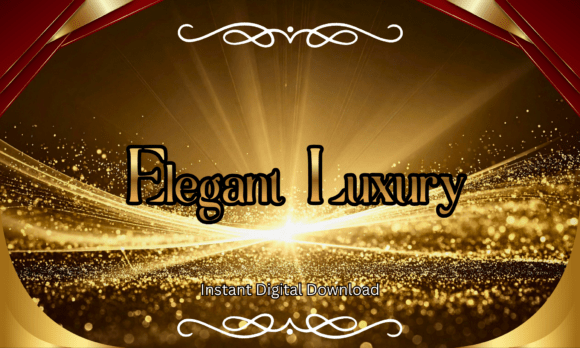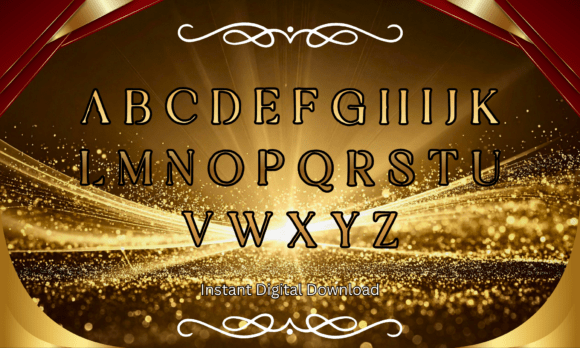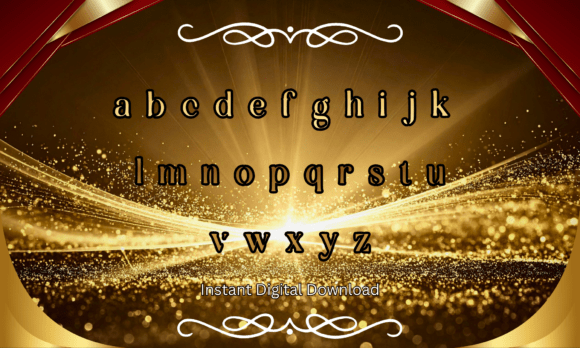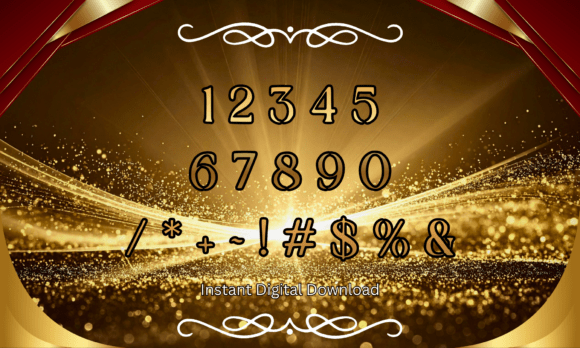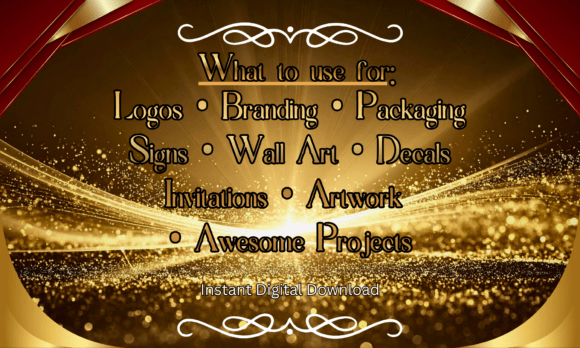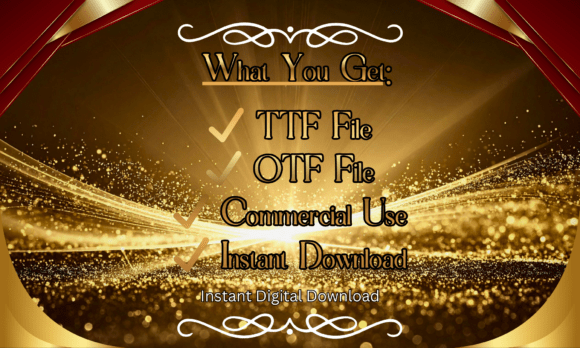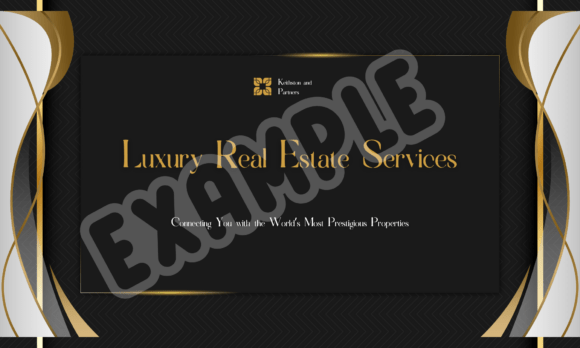
Elevate Your Designs with the Ultimate Luxury Font
Have you ever spent hours perfecting a design, only to feel like something’s missing? You want your creation to feel like a million bucks, but the right font just seems out of reach. That’s where the Elegant Luxury Font comes in – a refined, timeless serif font designed to give your high-end branding, weddings, and sophisticated design projects the polished, premium feel they deserve.
With its elegant curves and classic sophistication, this font is the perfect choice for creators who want their work to feel luxurious, professional, and unforgettable. Whether you’re designing for luxury brands, beauty and fashion companies, or small businesses, the Elegant Luxury Font is sure to elevate your designs to new heights.
Elegant Luxury Font Key Features
- Unique Characteristics: Elegant Luxury Font features intricate details, ornate flourishes, and classic elegance, making it perfect for luxury branding, high-end design, and special occasions.
Elegant Luxury Font Review
I’ve had the chance to work with the “Elegant Luxury Font” and I have to say, it’s a real showstopper. ✨ The refined lines and subtle flair make it perfect for high-end designs, from luxury brand logos to upscale marketing materials.
One of the standout features of this font is its versatility. ✨ It’s elegant enough for formal invitations, yet modern enough for trendy digital platforms. The range of weights and styles also make it easy to create a cohesive look across different mediums.
However, there are some limitations to consider. ⚠️ The font may be a bit too ornate for some designs, and the intricate details can make it difficult to read at smaller font sizes. Additionally, the font family is relatively small, so you may not have as many options for customizing your design.
- Refined lines and subtle flair for a luxurious look
- Wide range of weights and styles for versatility
- Perfect for high-end designs, from logos to marketing materials
- May be too ornate for some designs
- Smaller font family limits customization options
For the most elegant results, pair Elegant Luxury Font with high-quality images and a neutral color palette. Common use cases include:
- High-end product branding and packaging
- Luxury travel and hospitality materials